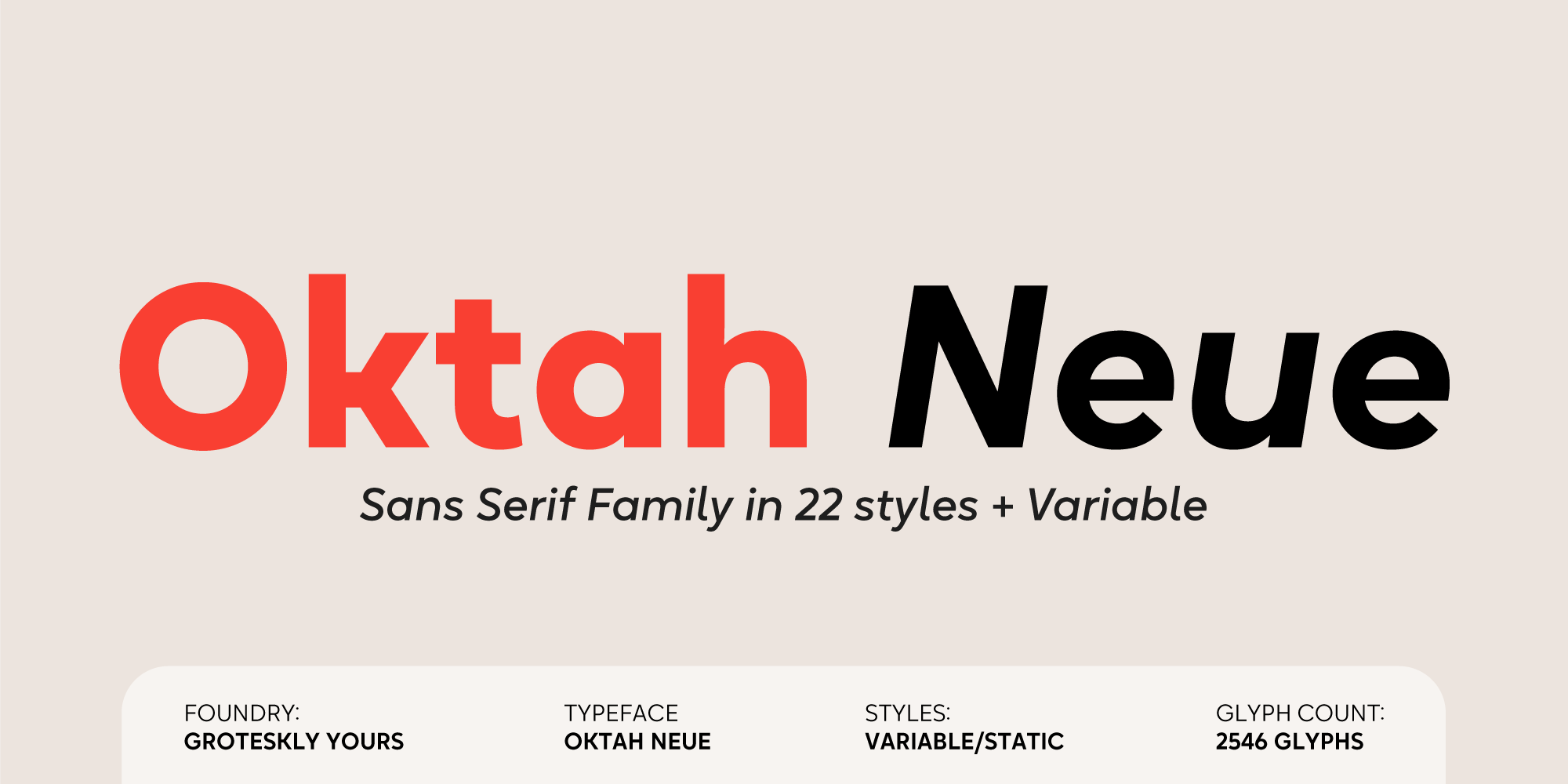
The Oktah Neue Font is perfect for modern corporate branding, sleek website designs, minimalist logos, contemporary magazine layouts, professional presentations, clean architectural signage, sophisticated business cards, editorial headlines, tech company materials, and premium product packaging.
What makes the Oktah Neue Font exciting is its masterful balance between geometric precision and humanist warmth that creates a contemporary typeface perfect for today's design landscape. This sophisticated font features carefully refined letterforms with subtle curves and precise angles that convey professionalism, innovation, and timeless elegance. Each character demonstrates meticulous attention to detail with optimal spacing and proportions that ensure exceptional clarity across all media formats.
The Oktah Neue Font family includes thin, light, regular, medium, bold, and black weights, along with matching italic versions and comprehensive character sets that support advanced typography and multilingual design requirements.
Whether you're developing corporate identity systems or creating editorial publications, Oktah Neue Font Free Download provides versatile excellence for contemporary design challenges. Its expertly crafted letterforms ensure outstanding legibility while projecting modern sophistication that appeals to discerning audiences. The font's OpenType features include stylistic alternates, contextual ligatures, and advanced numeral systems that enhance professional typography standards. Brand strategists and editorial designers consistently choose this font for projects requiring both contemporary appeal and timeless reliability. The Oktah Neue Font elevates ordinary text into polished professional communication, making it an indispensable foundation for any designer's modern typography library.